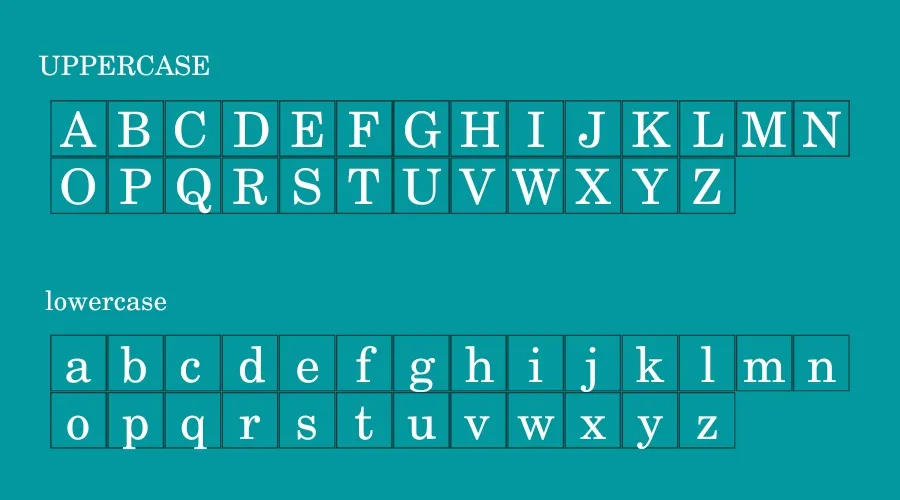
Qtschool Century Font
About Qtschool Century Font
QualiType designed Qtschool Century Font Within the font drop-down menu, discover and pick out the typeface. Now you’re prepared to start growing some mysterious designs. It’s far first-rate for quick terms and headlines. You may generate it from the net font generator tool or you can download its free version on from this website.
Several designers use this typeface for generating movie artworks and book covers. It’s highly readable at large sizes but still retains its personality at smaller text sizes. This font also supports multiple languages. This font is highly readable and perfect for any project.
This is a fun and joyful typeface that is sure to add some excitement to your next design project. So, you should have tried it and had fun. This typeface is normally used for making captions, brief idioms, and labels.
The typeface has come to be an iconic style it has a beautiful design. It’s often used for branding and publicity and marketing purposes. You can also utilize this typeface for developing cutting-edge invitations, blog designs, advertising outlines, branding, notebook outline, artwork, card designs, unique events, birthday card designs, pillow designs, mug designs, and so on.
Because of its texture and tough letters, the typeface was used for numerous applications. It’s an amazing typeface for commercials, artwork for films, and other cinematic banners. You could define the distinction in your work through the use of it.
Name Qtschool Century Font
Designer QualiType
Style Serif
• QTSchool Century Bold
• QTSchool Century Bold Italic
• QTSchool Century Italic
• QTSchool Century Regular
What kind of textual style is Qtschool Century?
This gorgeous typeface has a place in the category of serif font.